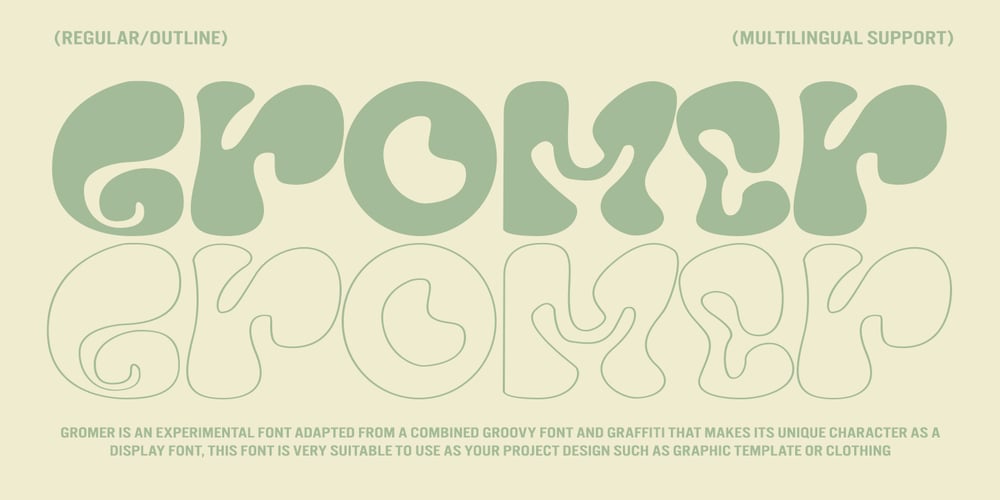
Gromer Font Family was designed by Asep Rendy and published by Heyfonts. Gromer contains 2 styles and family package options. Gromer is an exsperimental font adaoted from a combined groovy font and graffiti that maks it’s unique character as Display Font,this font is very suitable to use as your project design such as graphic template or clothing